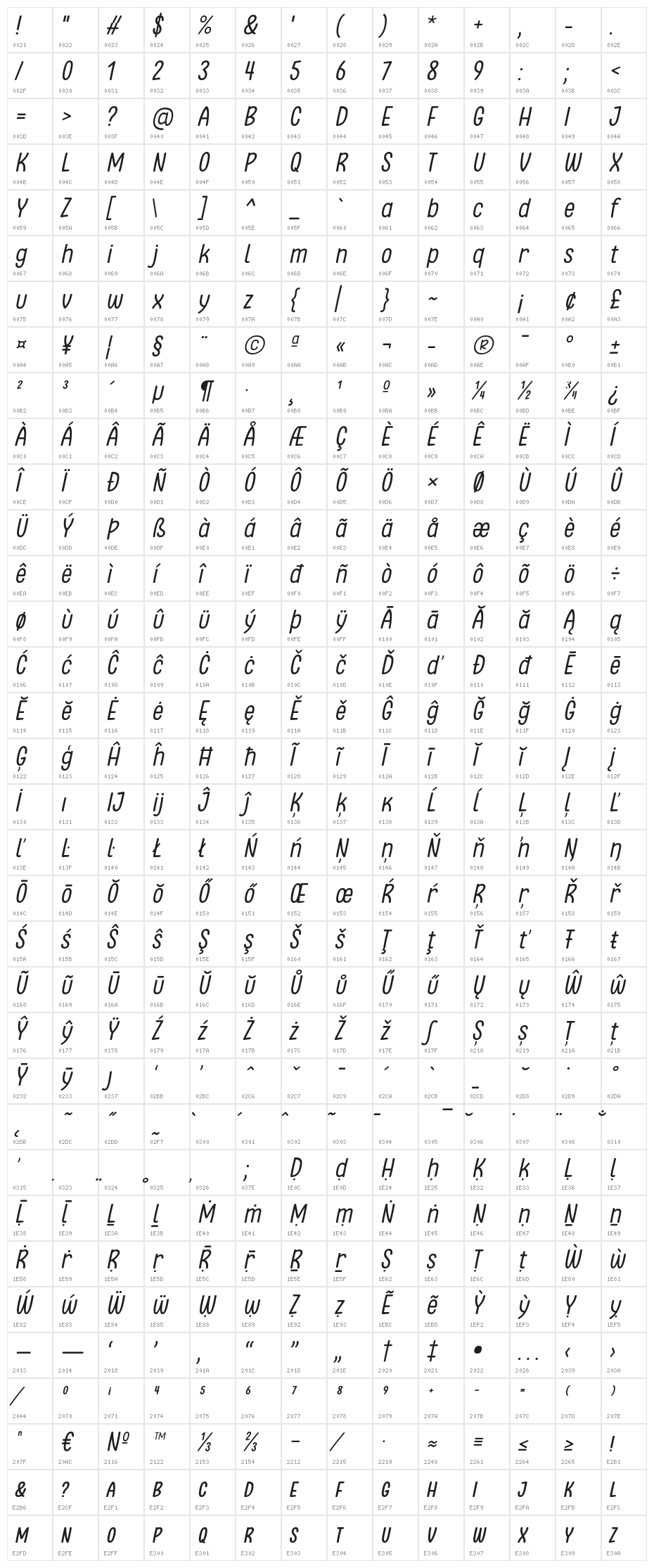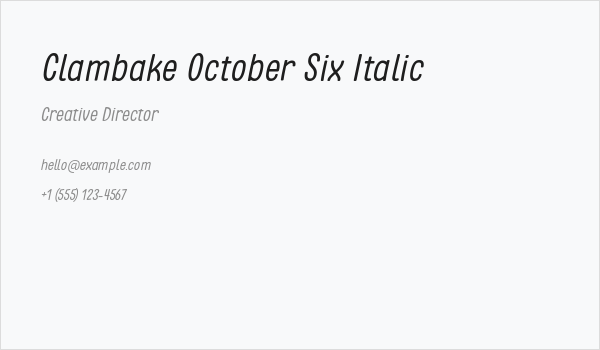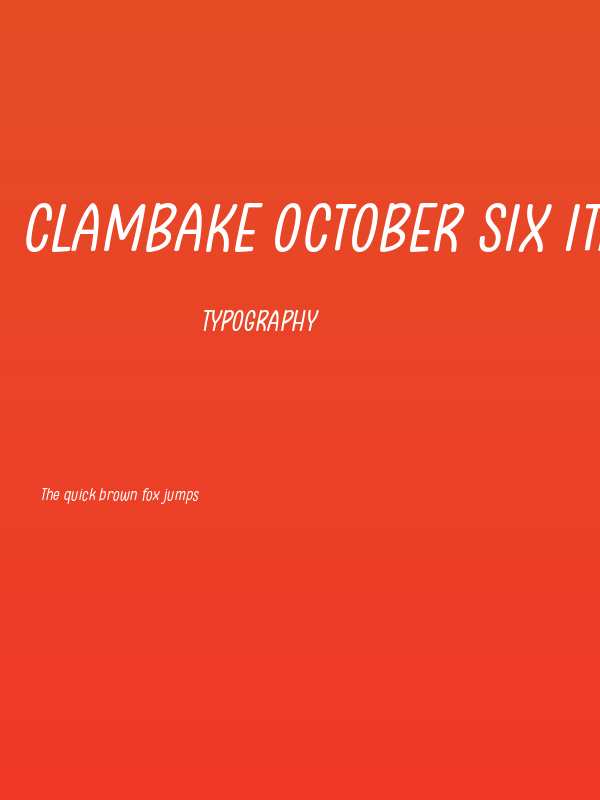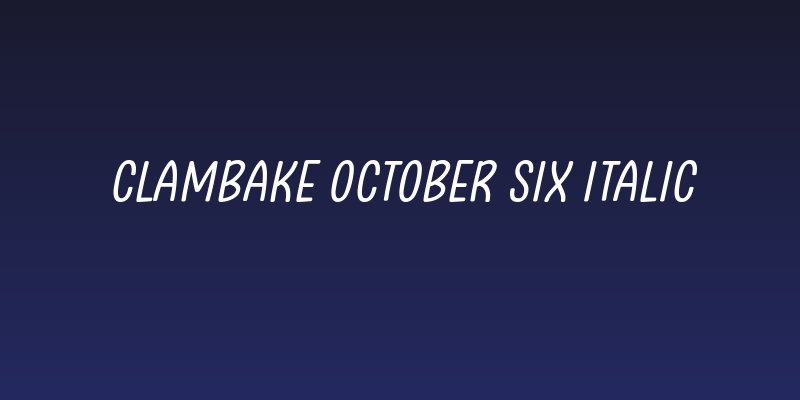
Clambake October Six Italic Font
Clambake October Six Italic Description
This font features a playful and dynamic style with a handwritten quality. The letters are slightly slanted, giving it an italic appearance that adds a sense of motion and energy. The strokes are consistent in width, providing a uniform look across all characters. The rounded edges and smooth curves contribute to its friendly and approachable feel. This font is versatile, suitable for both casual and professional settings, and can effectively convey a sense of creativity and informality.
| Use Case | Logos, Headlines, Informal Text |
| Proposed Projects | Ideal for creative projects such as greeting cards, invitations, branding for casual businesses, and social media graphics. |